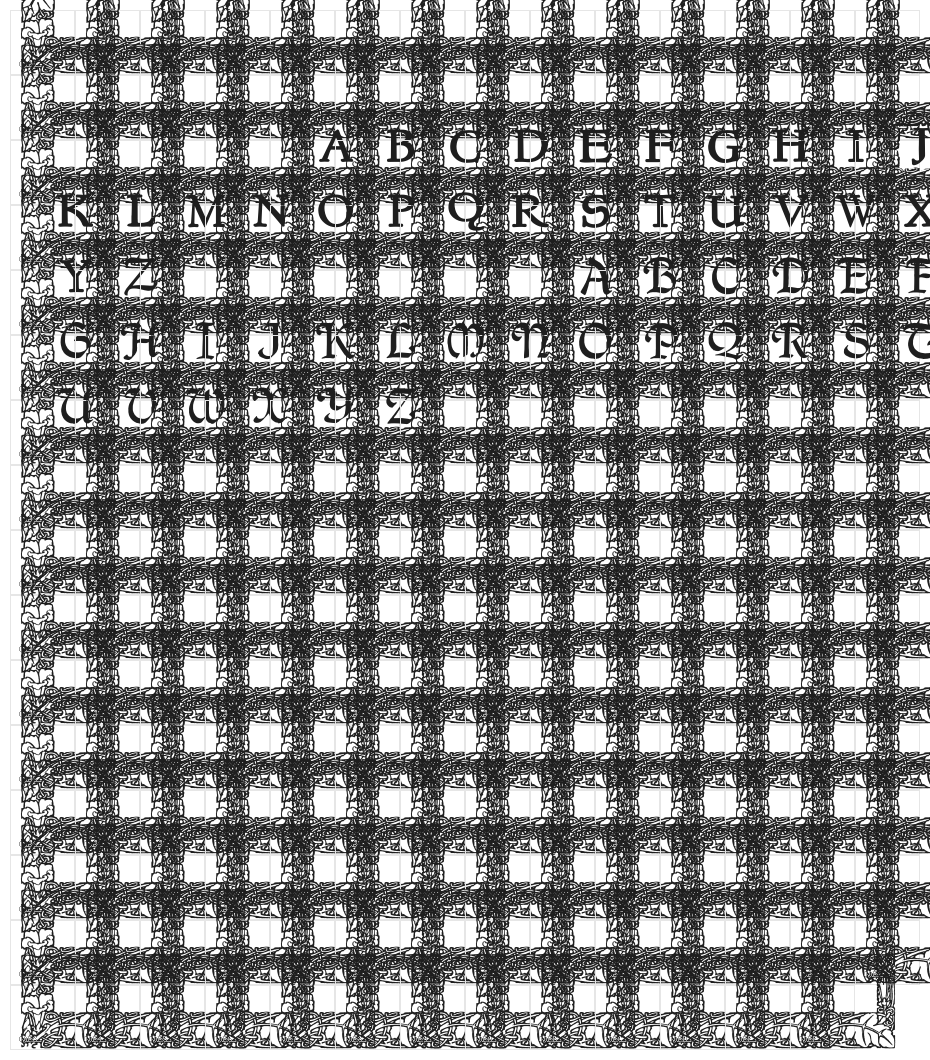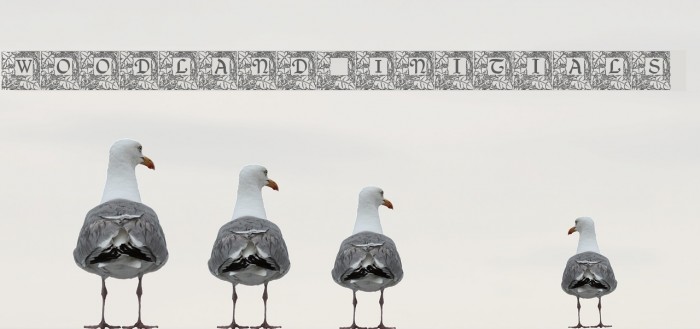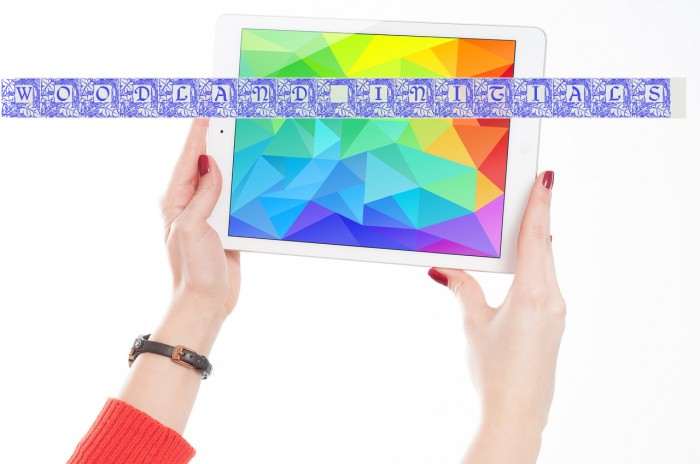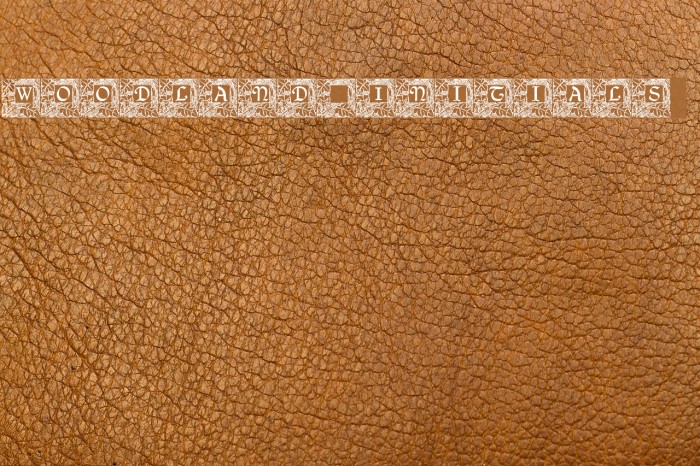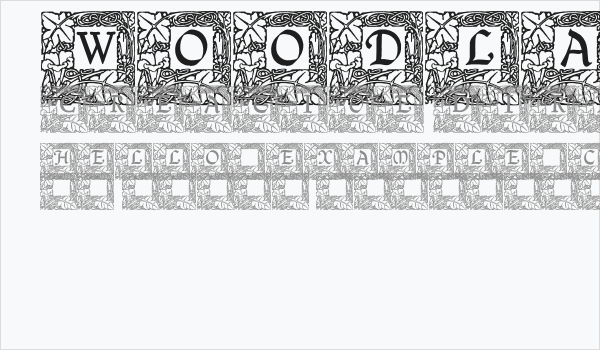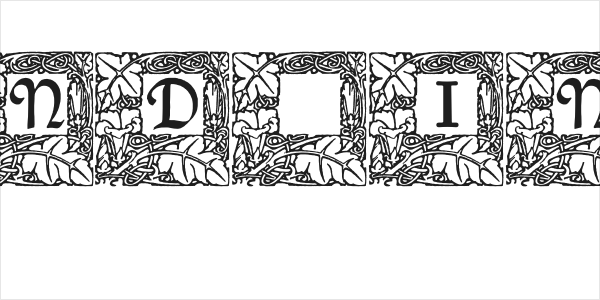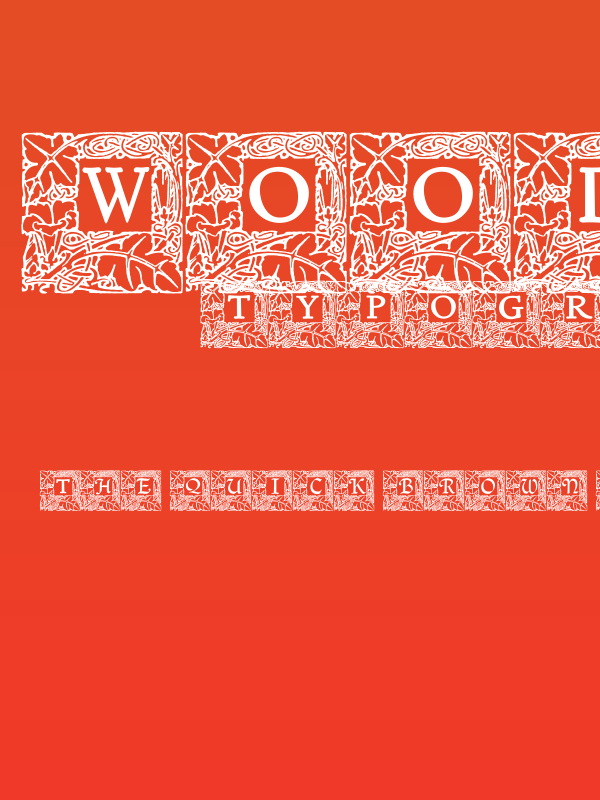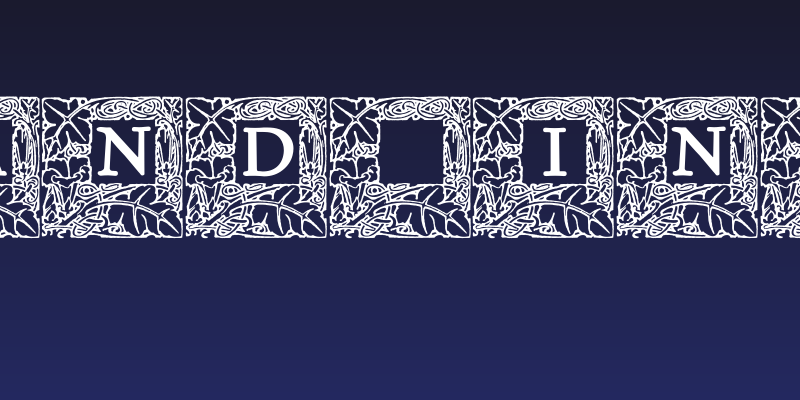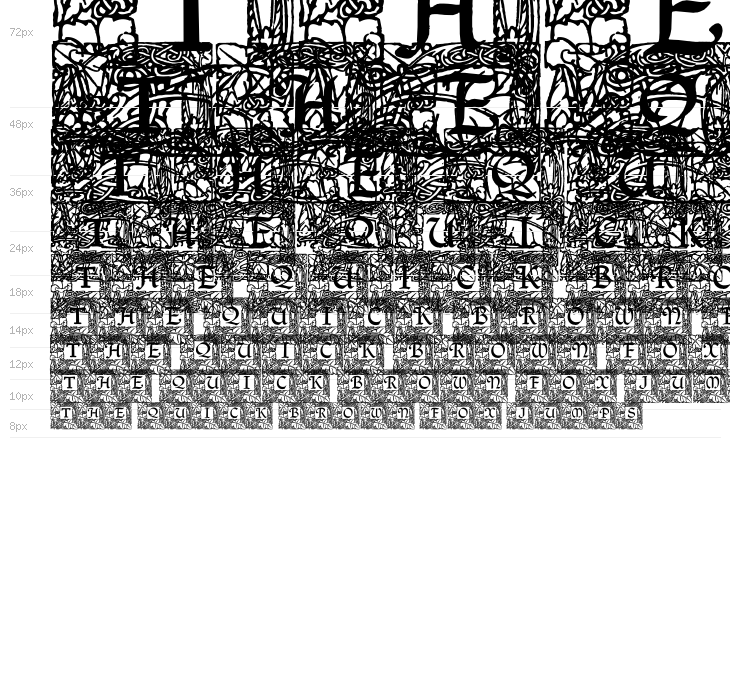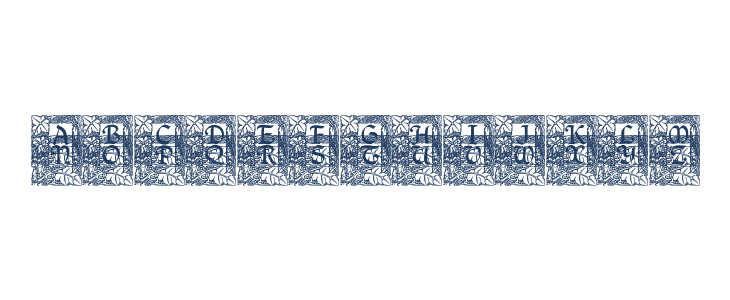
Woodland_Initials Font
Woodland_Initials Description
This decorative font features ornate initials enclosed within intricate woodland-themed borders. Each letter is capitalized and set against a backdrop of detailed foliage, creating a sense of nature and elegance. The letters themselves are bold and clear, standing out against the complex background. The design evokes a vintage, storybook feel, reminiscent of illuminated manuscripts or classic fairy tales. The overall aesthetic is both whimsical and sophisticated, making it ideal for projects that require a touch of fantasy or historical charm.
Overall StyleVintage
Use CaseLogos, Headlines, Decorative elements
Proposed ProjectsIdeal for invitations, book covers, greeting cards, or any project needing a whimsical, vintage touch.